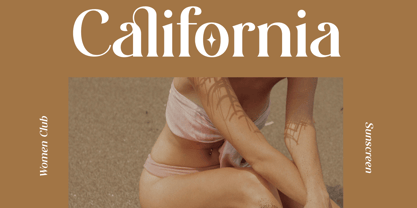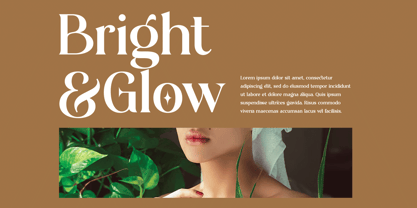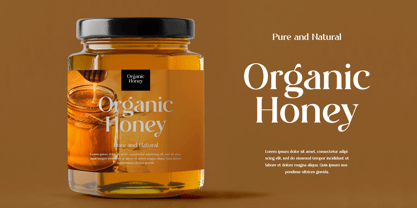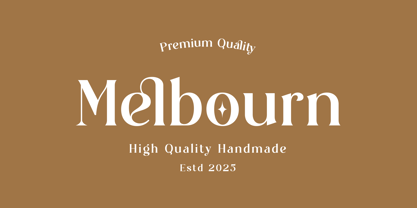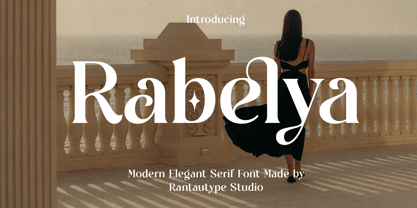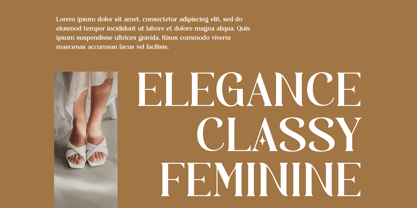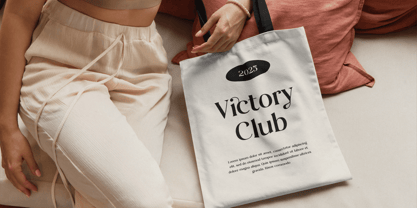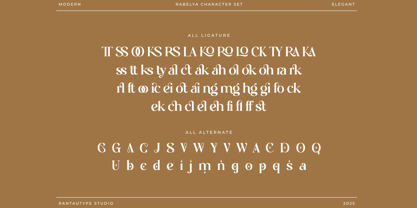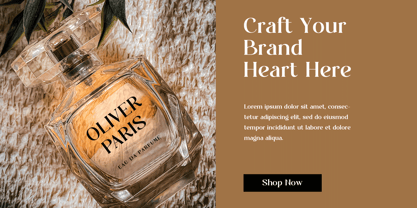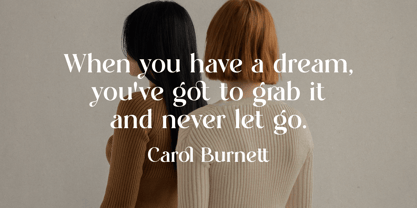
Rabelya
by RantauType
The Rabelya Font Family was designed by Yudi Pratama Chandra and published by RantauType. Rabelya contains 2 styles and family package options. More about this family
A modern elegant serif font is a typeface that blends the timeless sophistication of classic serif design with contemporary aesthetics. Here's a detailed breakdown of what makes a modern elegant serif font stand out. Rabelya is a perfectly choice for any creative endeavor, chic, lifestyle design such as logotype, advertisements, watermark on photography, stationery, branding project, display and magazine, invitation, corporate brand, product design, label, business project and many other project with modern touch.
• Ligature and alternate
Designers: Yudi Pratama Chandra
Current Foundry: RantauType